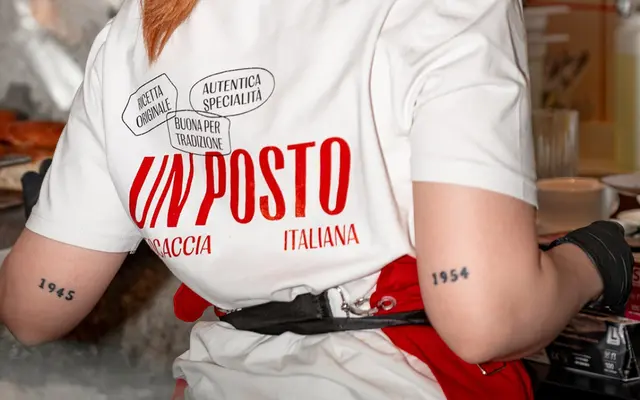
PP Right Gothic
Pangram Foundry · Alex Slobzheninov · 2021
PP Right Gothic specimen from Pangram Foundry
A 98-style gothic sans by Alex Slobzheninov with seven weights, seven widths and pronounced thick-thin contrast.
Right Gothic is a 98-style sans by Alex Slobzheninov, built as seven weights across seven widths with italic cuts. Compared to the wider Right Grotesk, it carries a pronounced thick-thin contrast that nods to early pre-Swiss sans typefaces. Smooth ink traps and a contemporary feel keep it usable as a body voice as well as a headline. Cyrillic support is included.
Pangram tags it Cyrillic, Gothic, Italics, Sans Serif, Variable. Seven subfamilies of 14 styles each, 98 styles total: 7 weights x 7 widths x 20 degree italic. Cyrillic support included. Drawn with pronounced contrast that nods to early pre-Swiss sans typefaces.